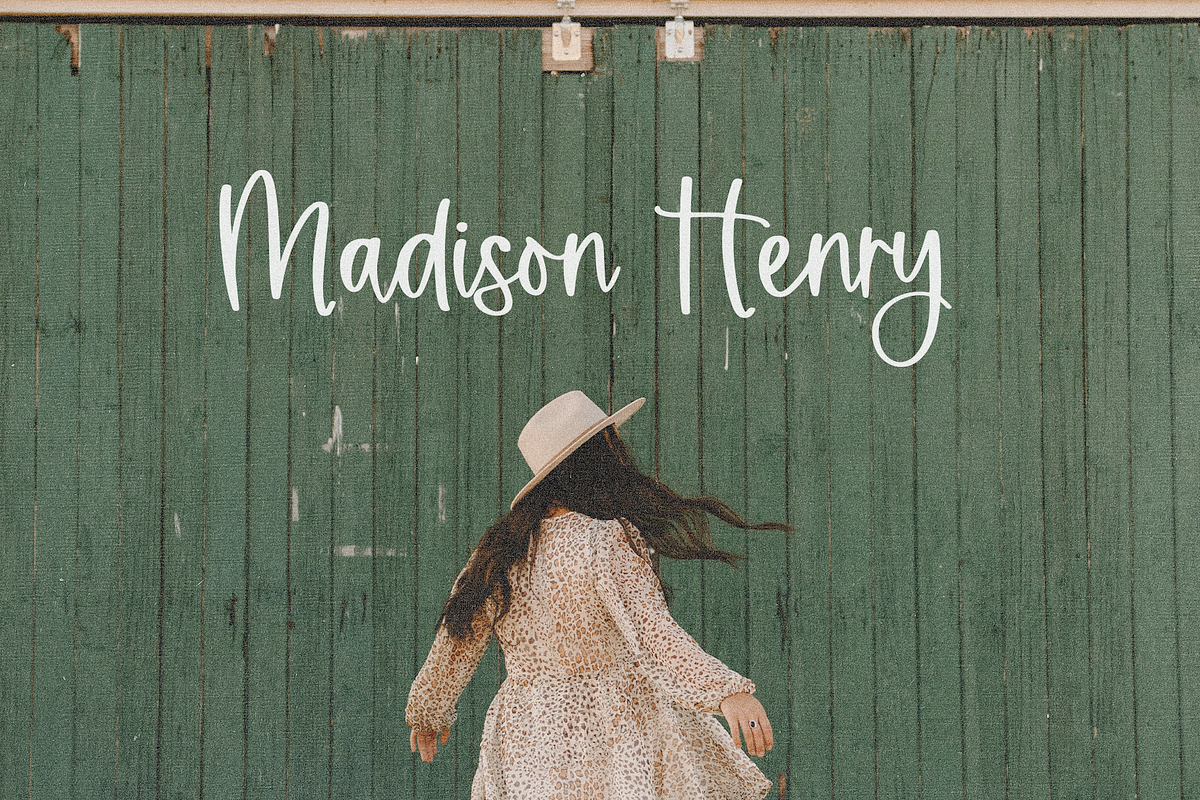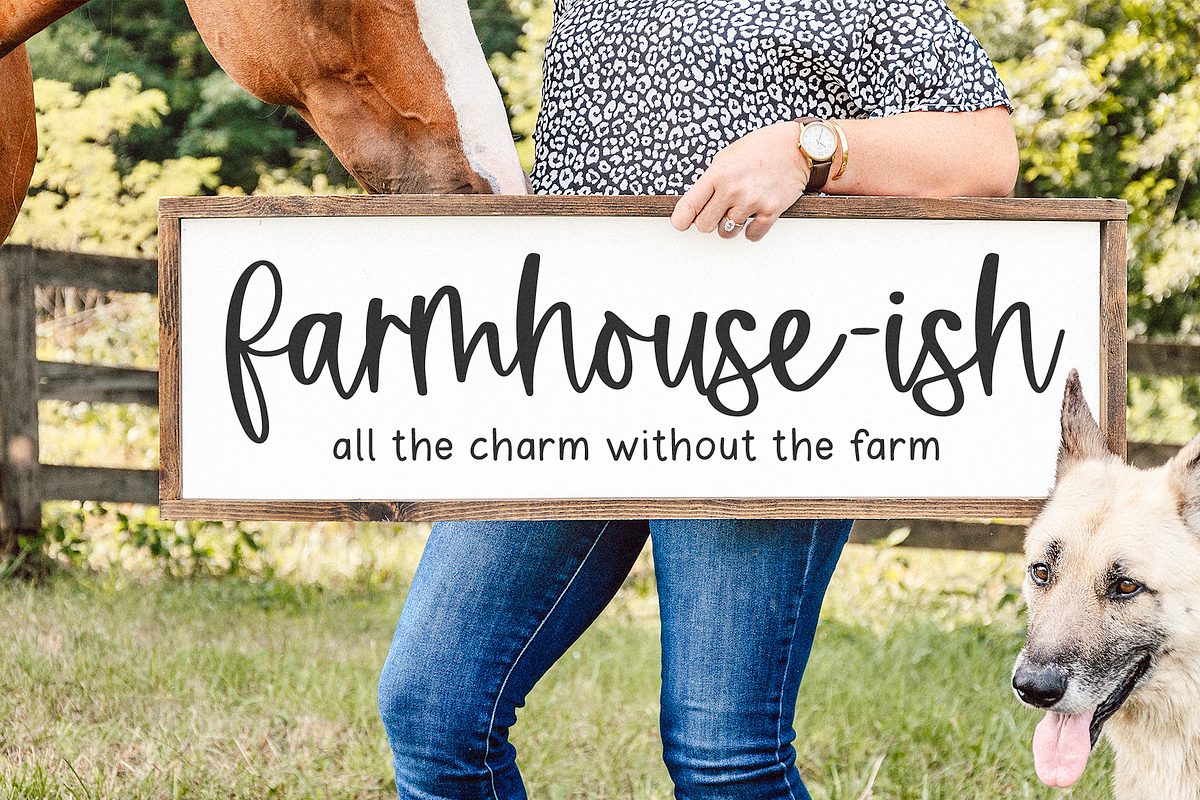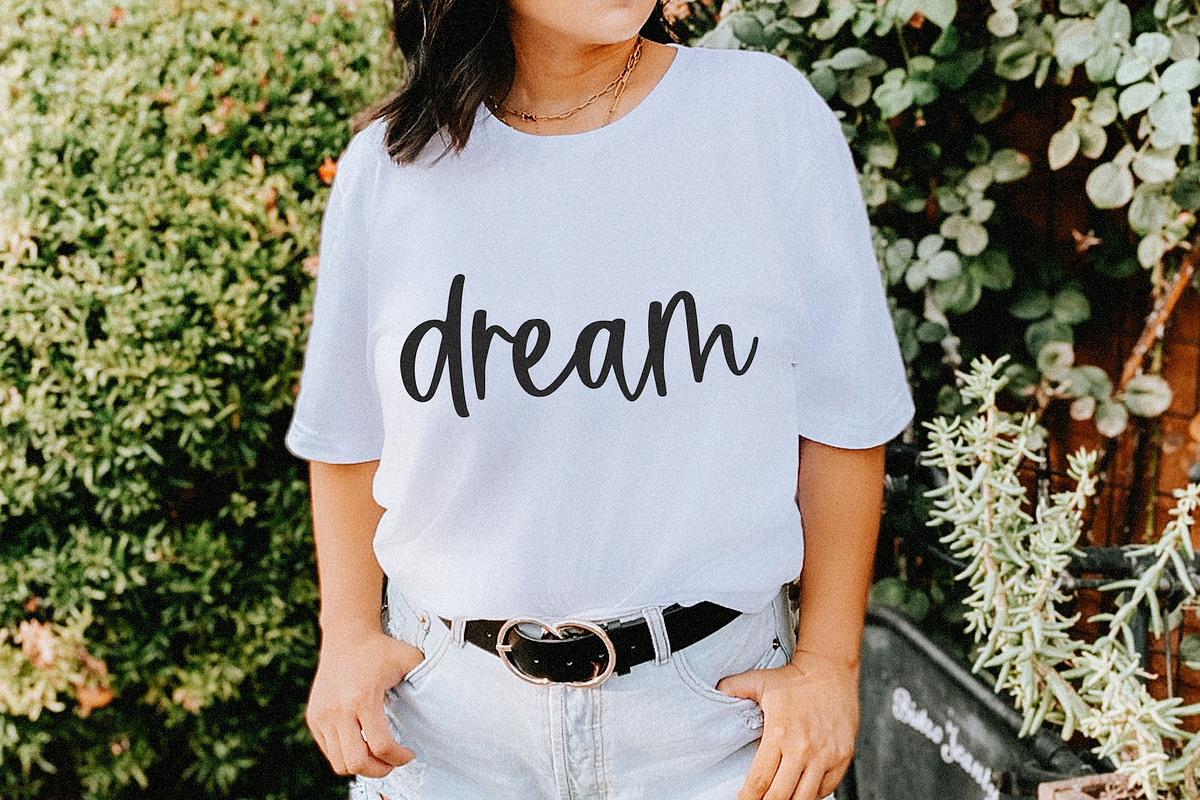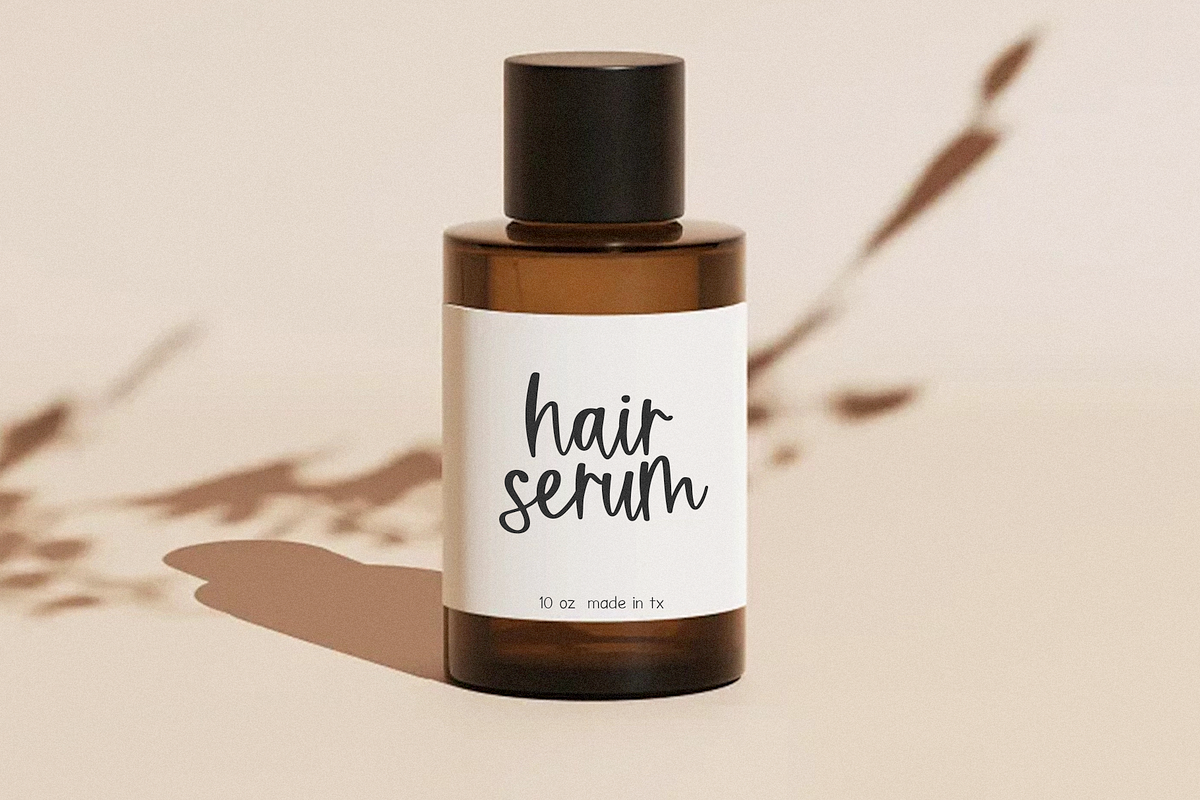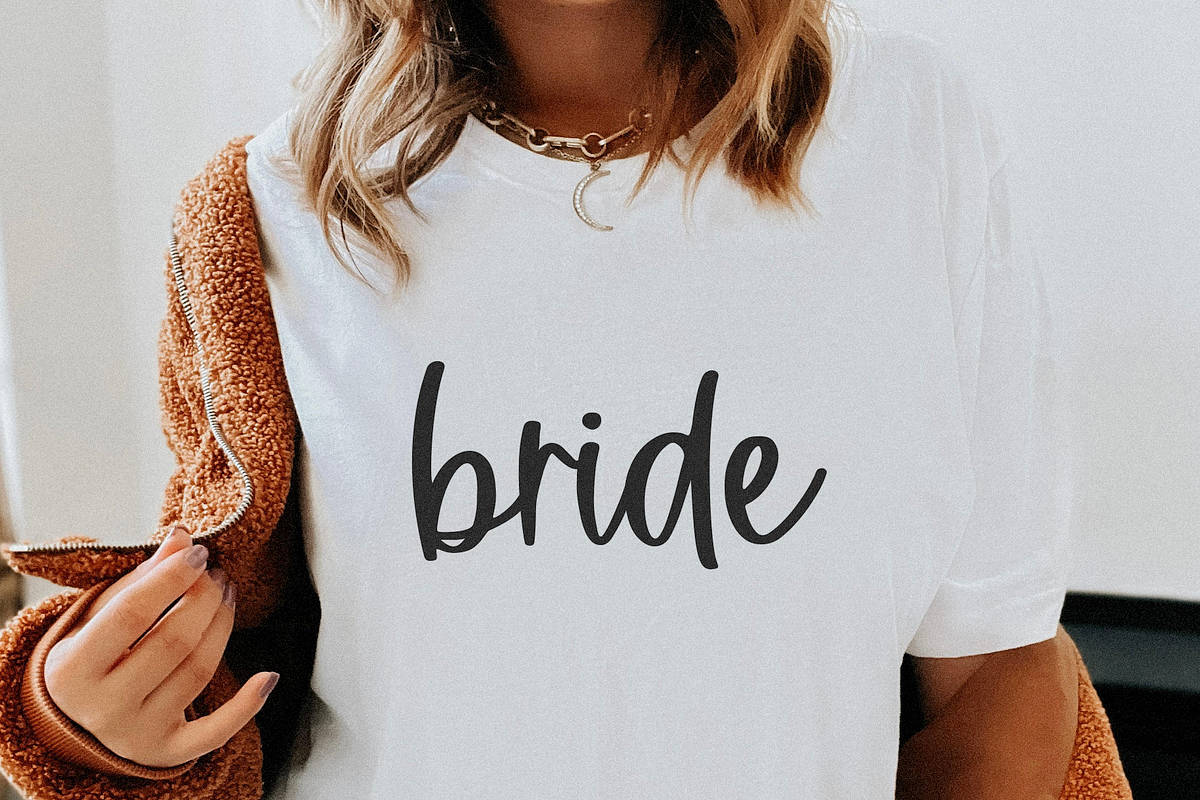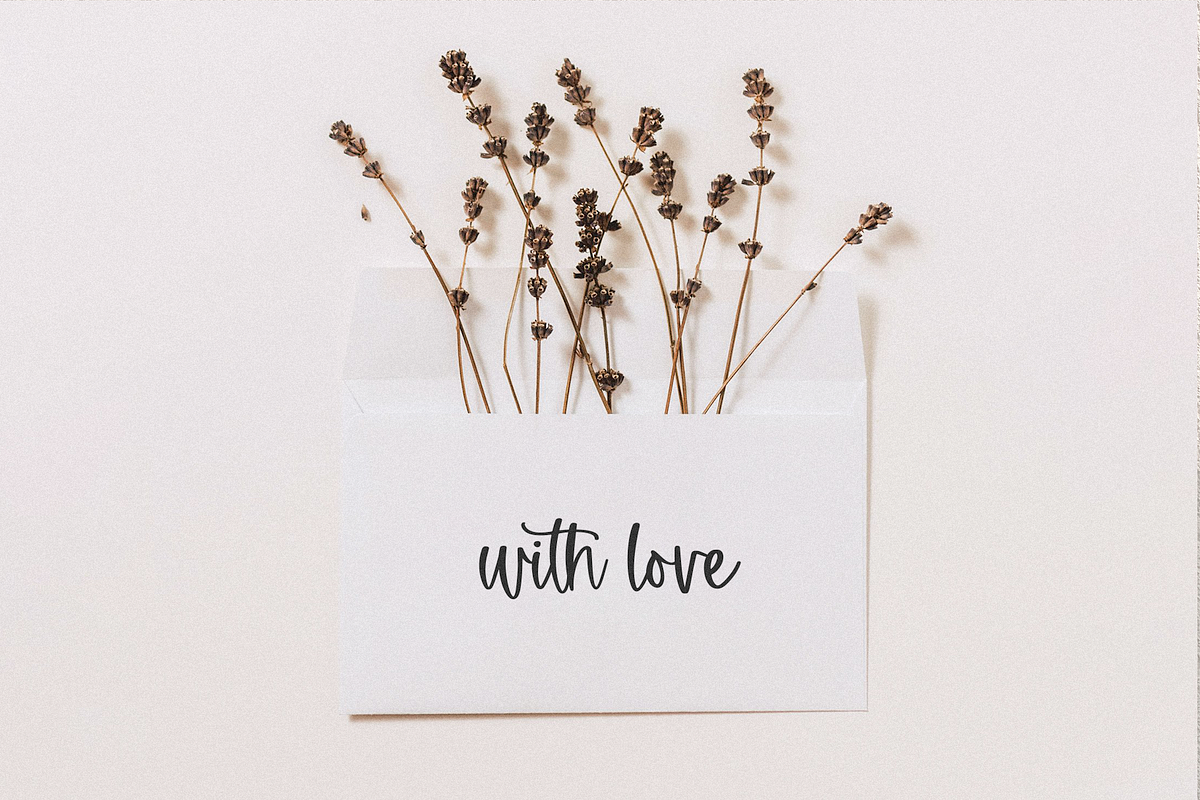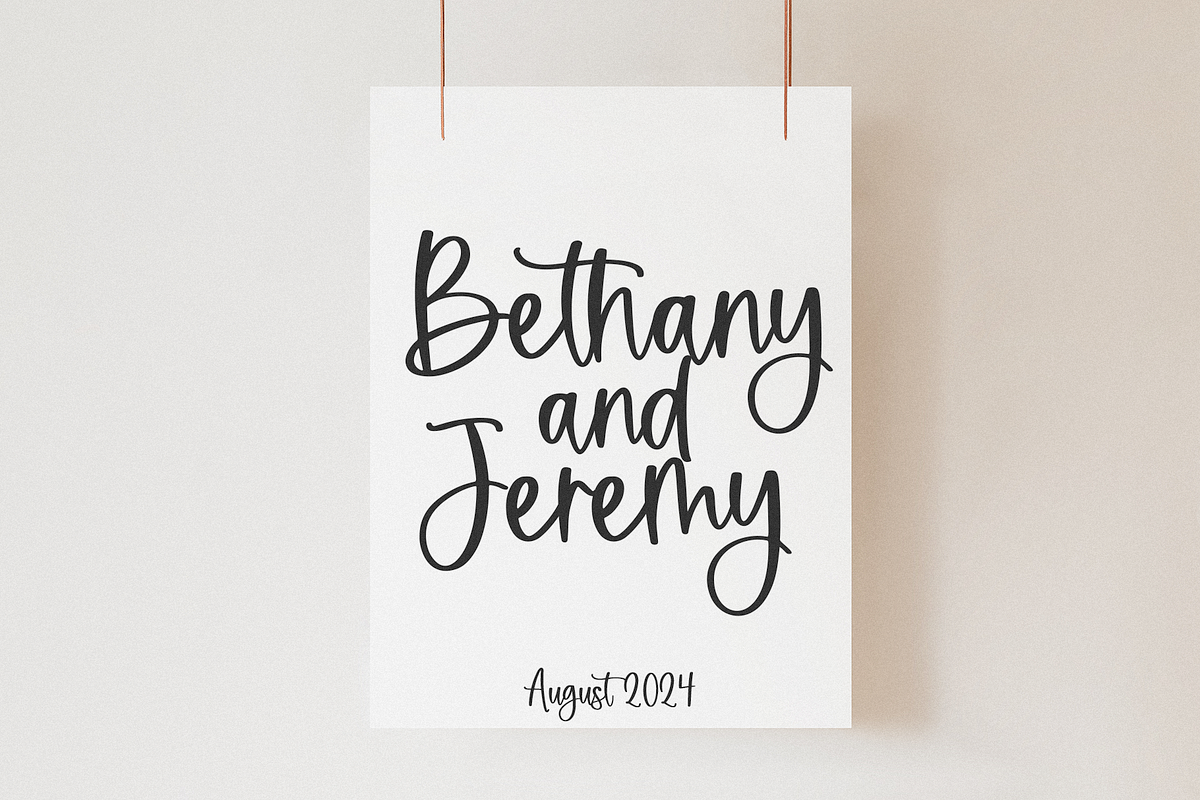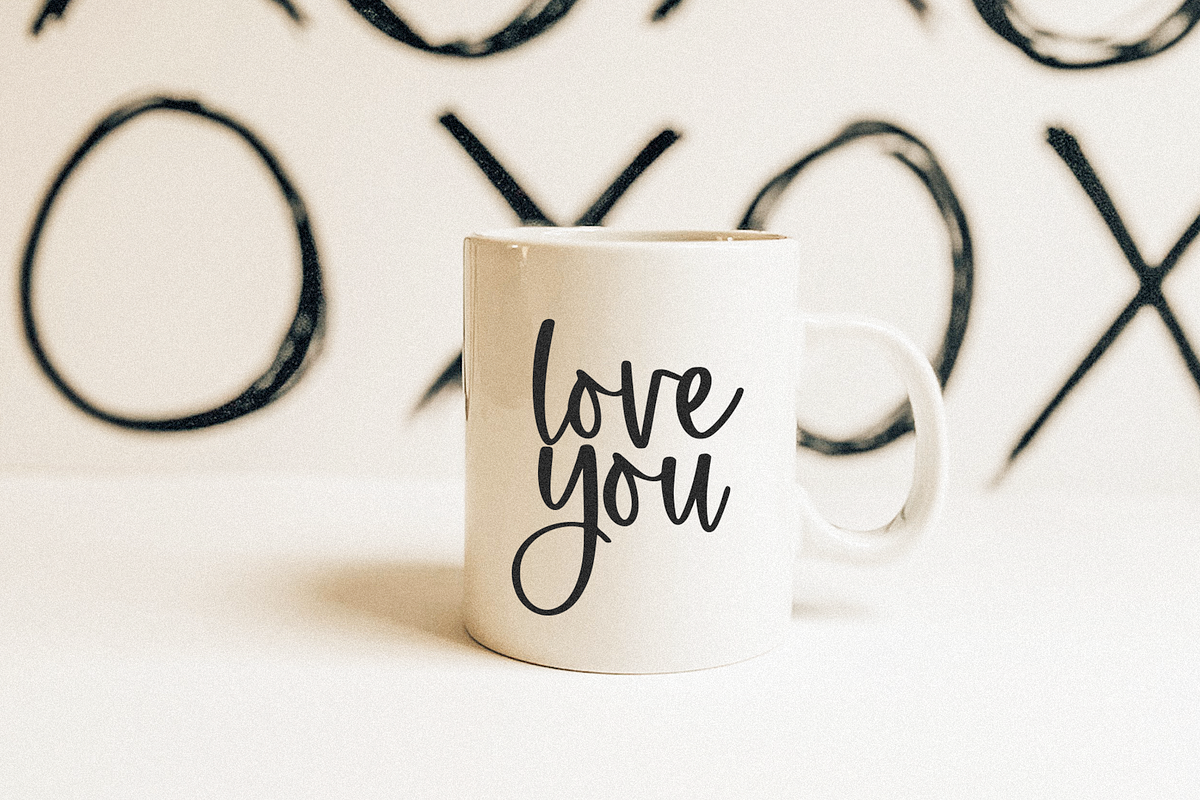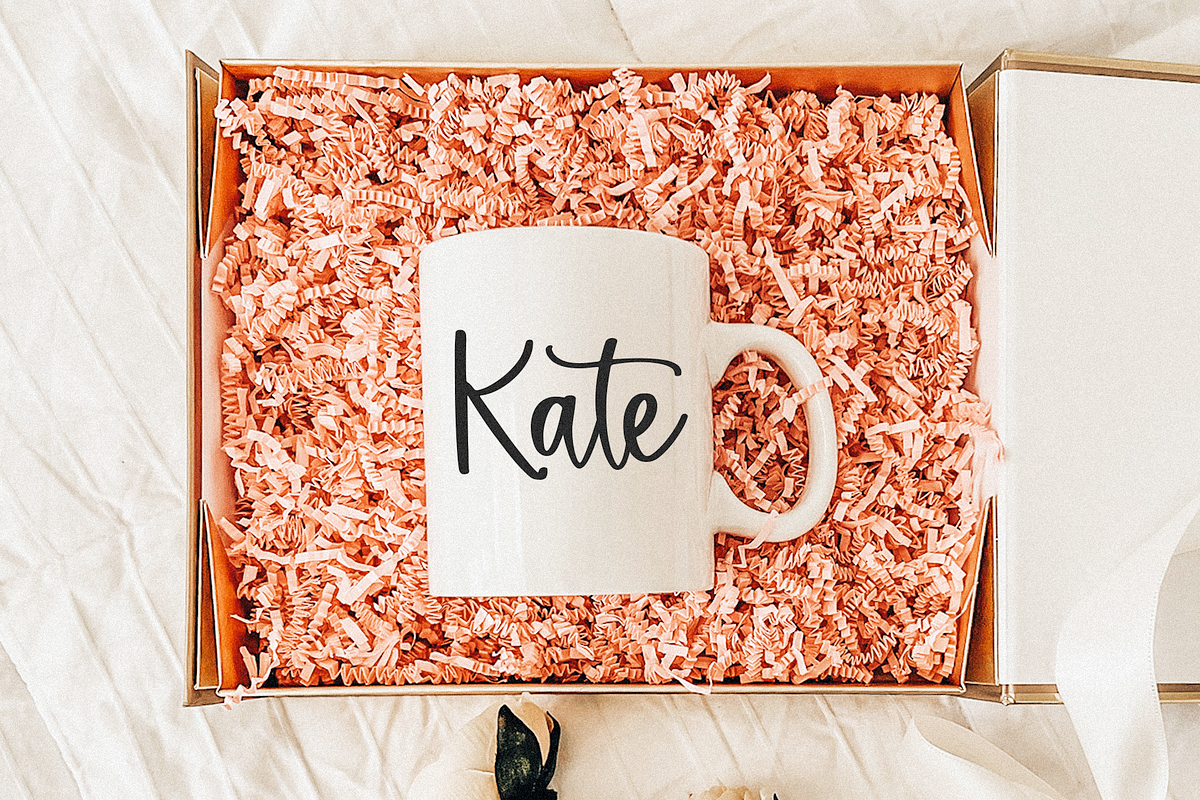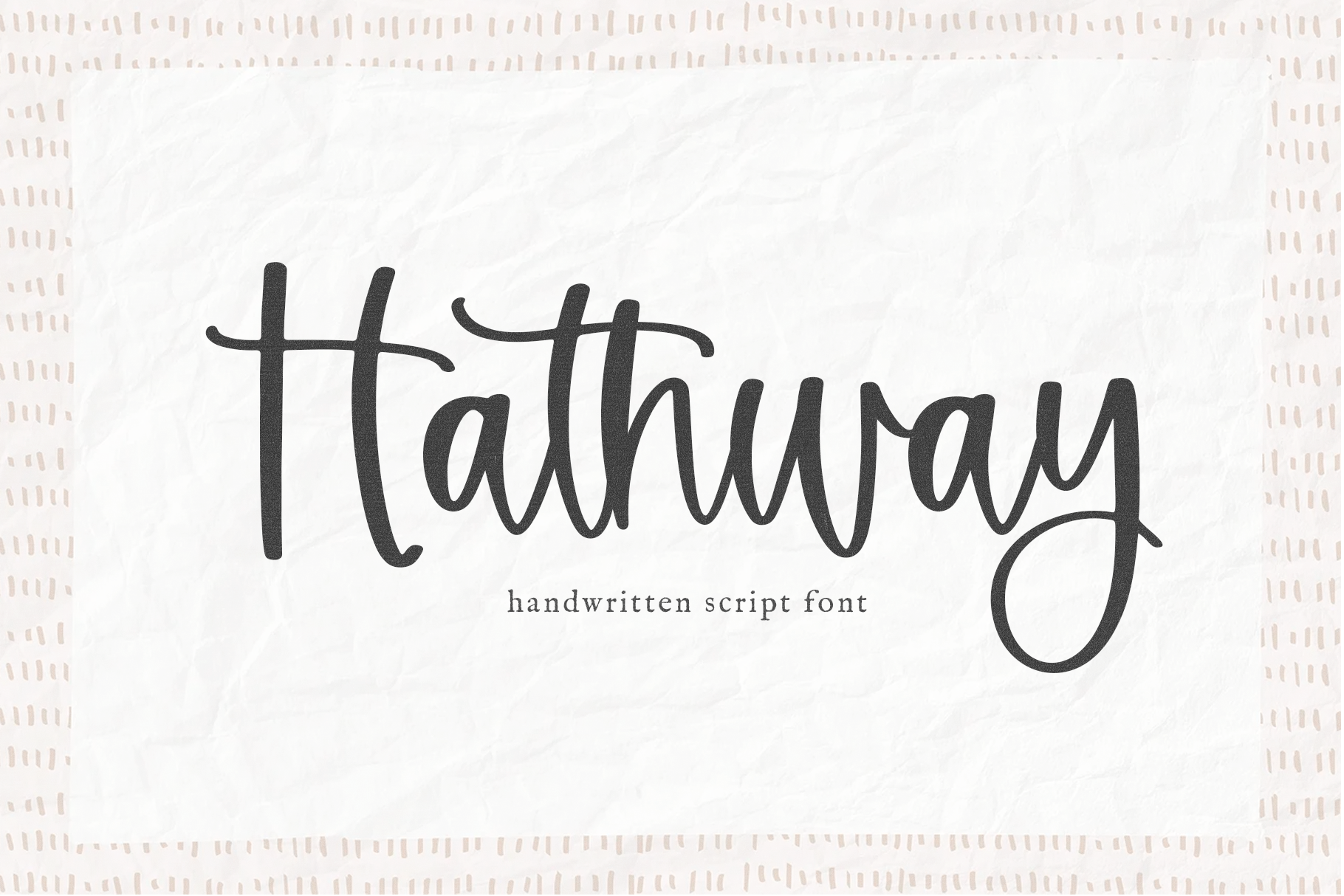
Hathway | Modern Script Font
Hathway is a modern handwritten script font.
This font is perfect for wedding decor, invitations, signs, logos, quotes, shirts, mugs, craft projects, farmhouse decor, svg files and more!